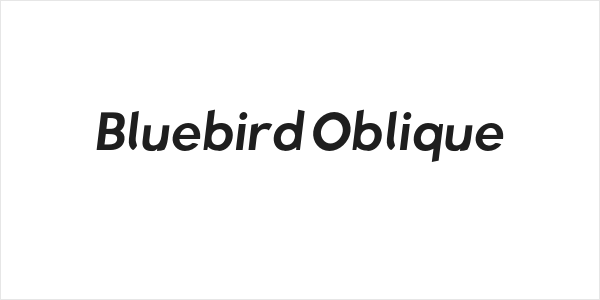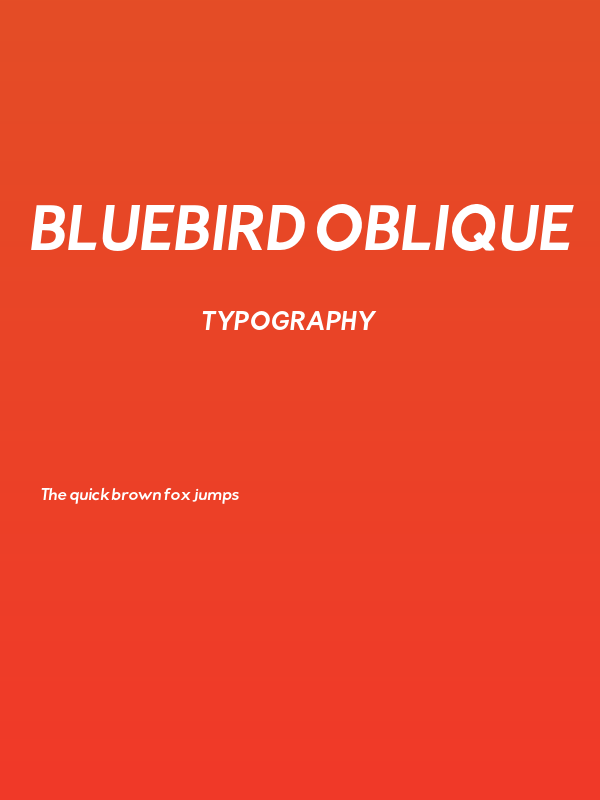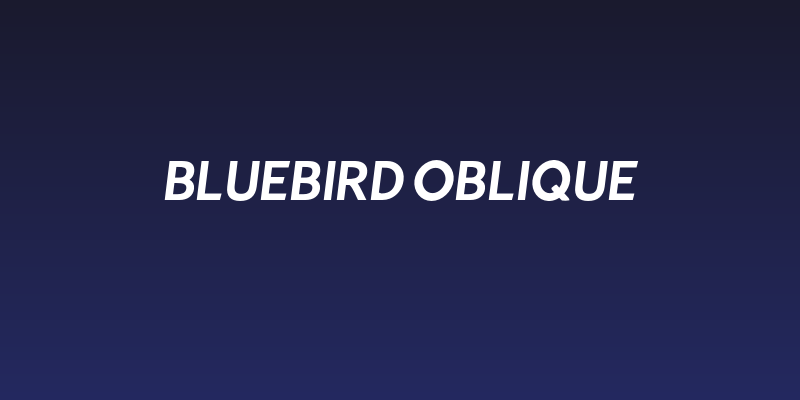
Bluebird Oblique Font
Bluebird Oblique Description
This font features a sleek and modern design with a distinct oblique style, giving it a dynamic and forward-leaning appearance. The characters are well-proportioned, with a consistent slant that adds a sense of motion and energy. The uppercase letters are bold and commanding, while the lowercase letters maintain a smooth and cohesive flow. The numerals are clear and easy to read, making them suitable for various applications. The special characters are designed with the same attention to detail, ensuring uniformity across the entire typeface. This font's overall aesthetic is clean and contemporary, making it versatile for both digital and print media.
| Use Case | Headlines, Logos, Digital Media |
| Proposed Projects | Ideal for branding, advertising, digital media, and editorial design. |